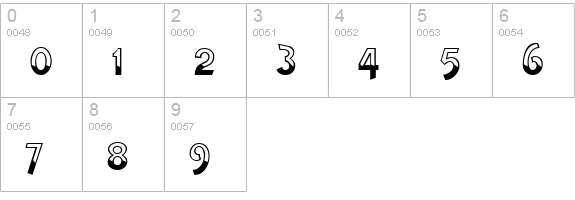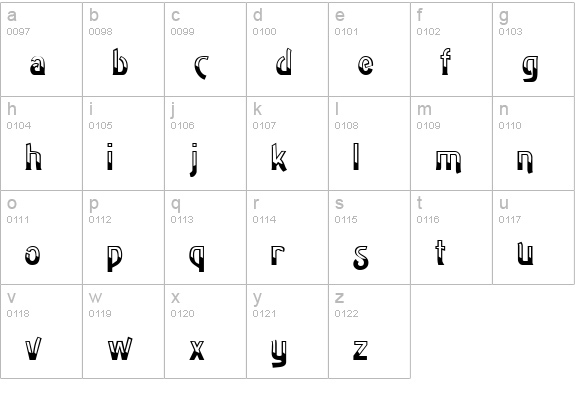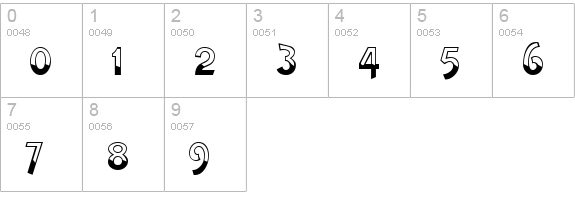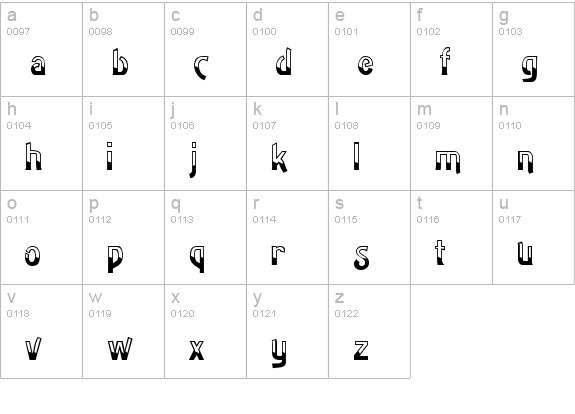
HighNoon font is a stunning display typeface that exudes a sense of old western charm and rugged sophistication. With its bold and distinctive letterforms, HighNoon is perfect for creating eye-catching headlines, logos, and posters that demand attention. This versatile font strikes the perfect balance between vintage aesthetics and modern design, making it ideal for a wide range of creative projects. And the best part? HighNoon is completely free to download at FontsMarket.com. This means you can add this unique font to your collection without any cost, allowing you to unleash your creativity without breaking the bank. Whether you're a designer looking to add a touch of the wild west to your work or a hobbyist in search of a standout font for personal projects, HighNoon is the perfect choice. Download it today and let your creativity run wild with this fantastic font!